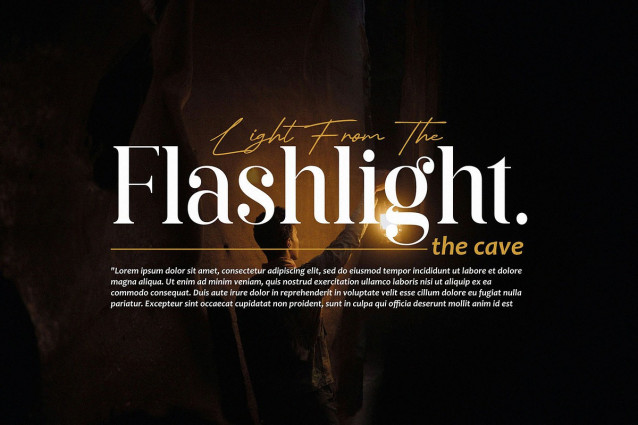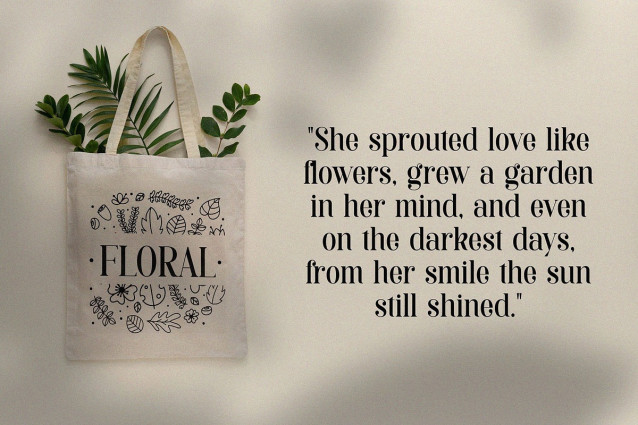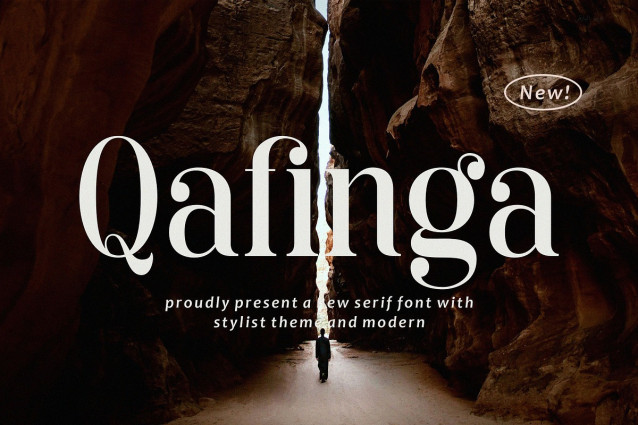
Qafinga Font
Qafinga Font, modern serif font with elegant style this is perfect for branding, logos, invitation, magazines, product packaging and more.